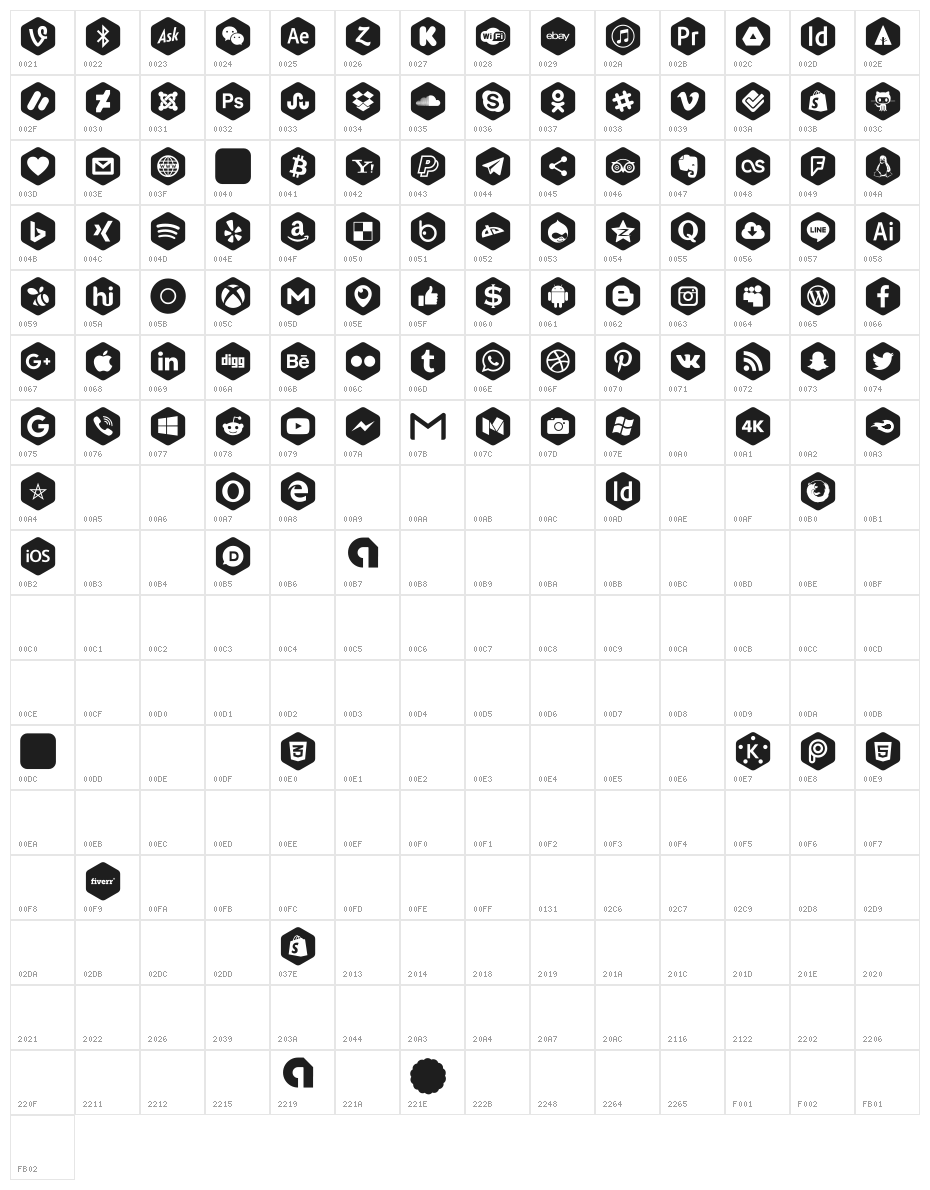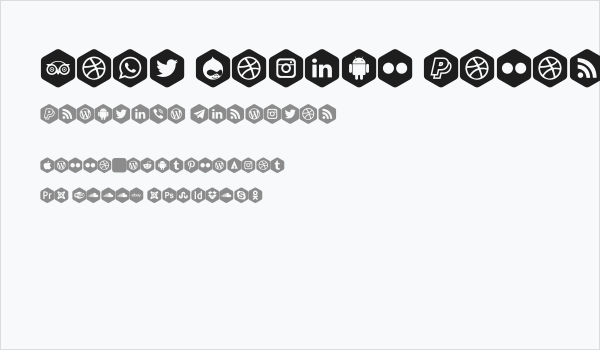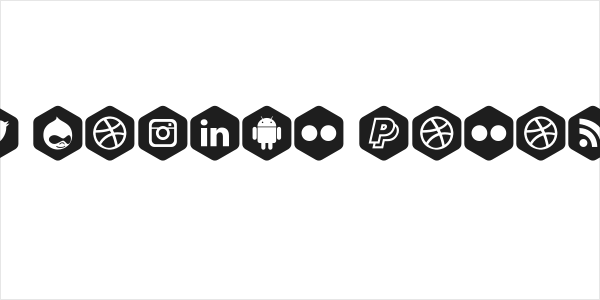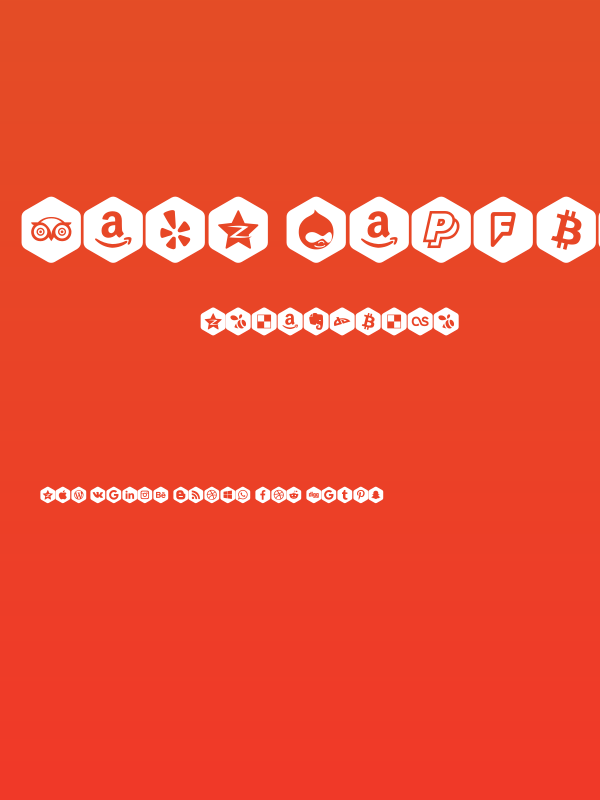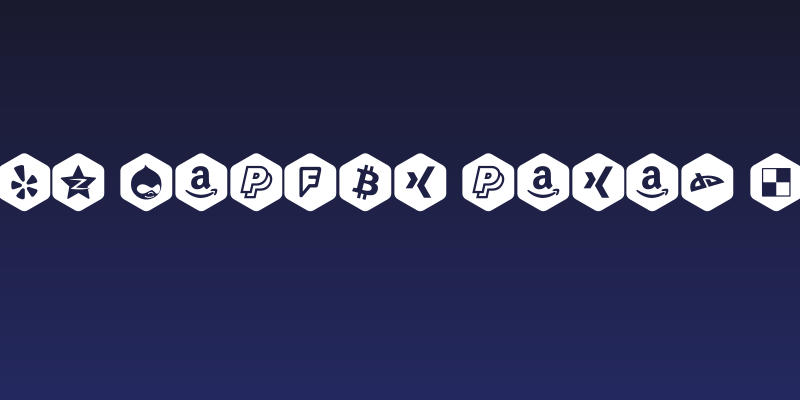
Font Social Color Pro Font
Font Social Color Pro Description
A collection of social media and technology brand icons, each enclosed in a bold, black hexagonal shape with white logos or glyphs centered inside. The icons are consistent in size and style, providing a uniform and modern appearance suitable for digital interfaces.
| Overall Style | Modern, Minimalist |
| Use Case | Icons, UI elements, Social media links |
| Proposed Projects | Website footers, app interfaces, digital portfolios, social media link sections, presentations. |